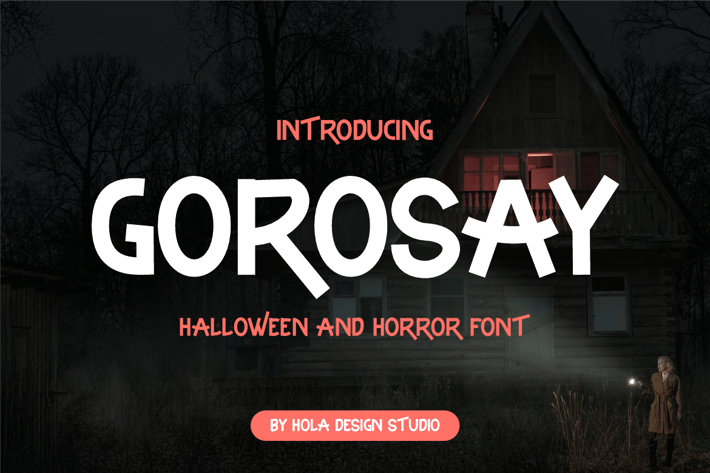
Gorosay - Horror Font
Gorosay - Horror Font Font is unique . Ready to use for your design like labeling, movie sceen, poster, movie title, gigs, album covers, logos, and much more.